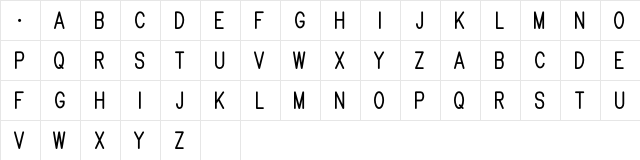
Brandy mono san typeface Regular
Design Context for Brandy mono san typeface Typeface
Brandy mono san typeface brings the precise, column-aligned rhythm of monospaced typography to designs that value technical clarity and systematic order.
A natural fit for code editors, technical documentation, developer-focused branding, and terminal-inspired UI.
Pro Tip: Pair Brandy mono san typeface with a proportional sans for UI contexts where code-style labels and regular body copy need to coexist.